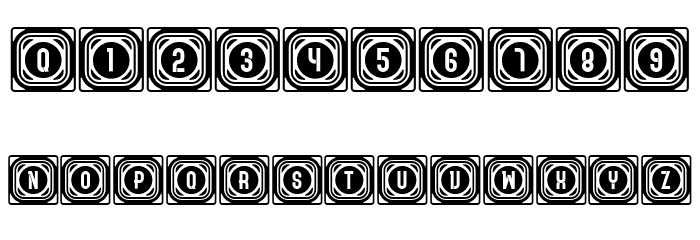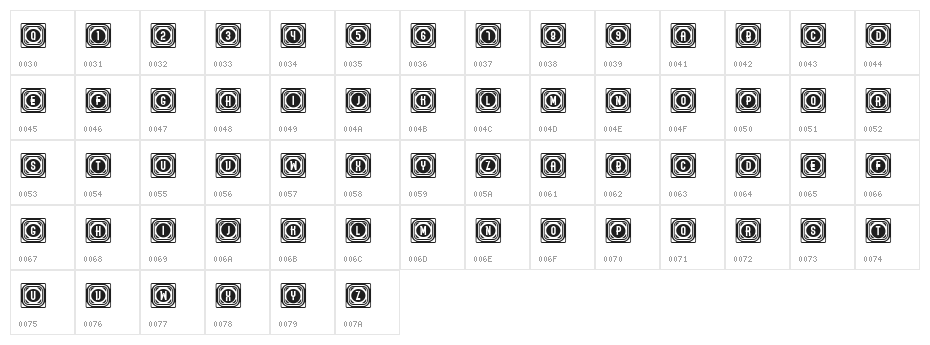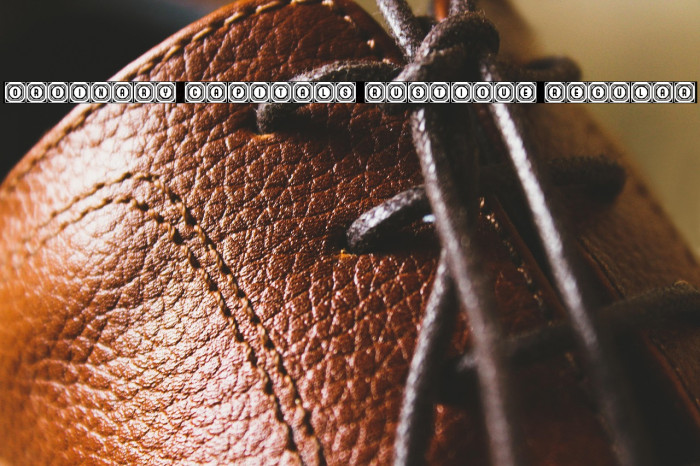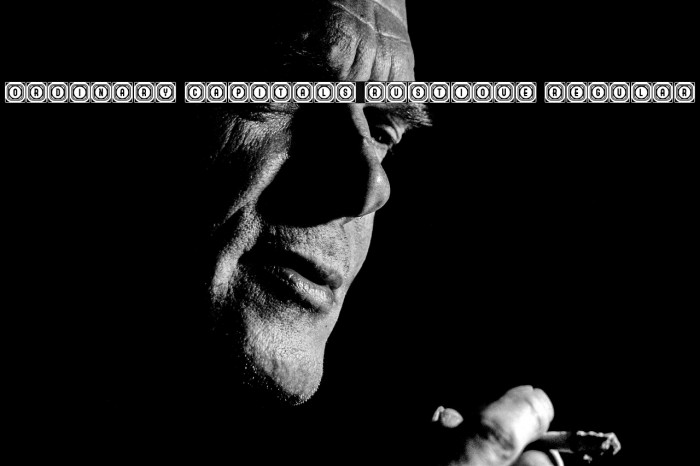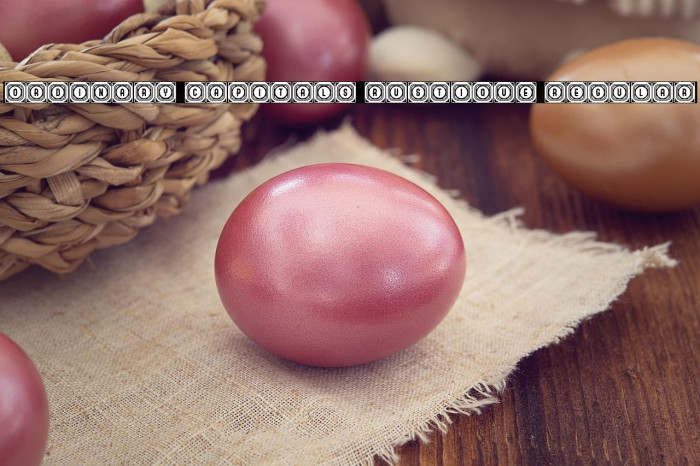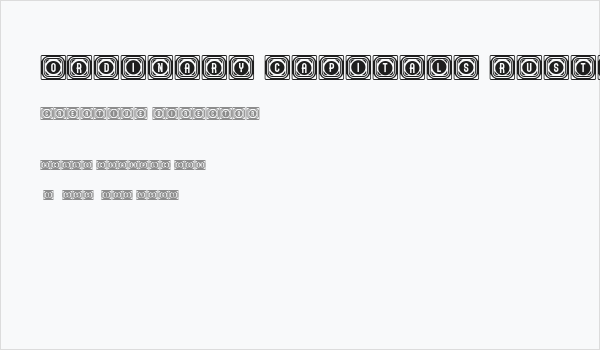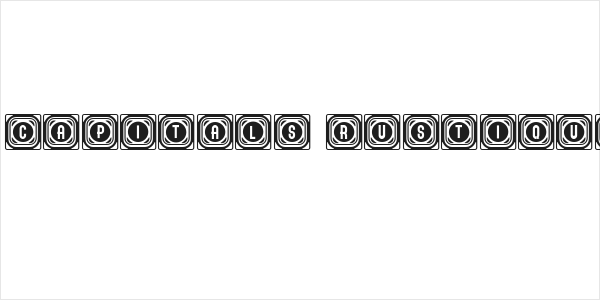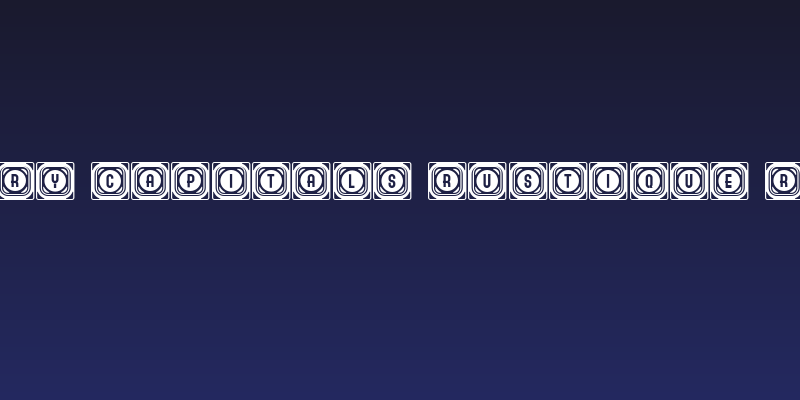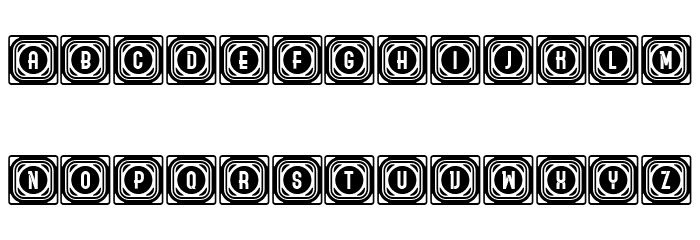
Ordinary Capitals Rustique Regular Font
Ordinary Capitals Rustique Regular Description
This font features a bold, decorative style with each character enclosed in a square border, giving it a distinct, eye-catching appearance. The letters are uppercase and have a geometric, block-like form that is consistent across the alphabet. The design is reminiscent of vintage typewriter keys or signage, with a strong emphasis on symmetry and uniformity. The characters are evenly spaced within their borders, creating a cohesive and structured look. This font is ideal for projects that require a retro or industrial aesthetic, as it combines both modern and classic elements in its design.
| Proposed Projects | Ideal for vintage-themed posters, industrial design projects, signage, and branding that requires a bold statement. |